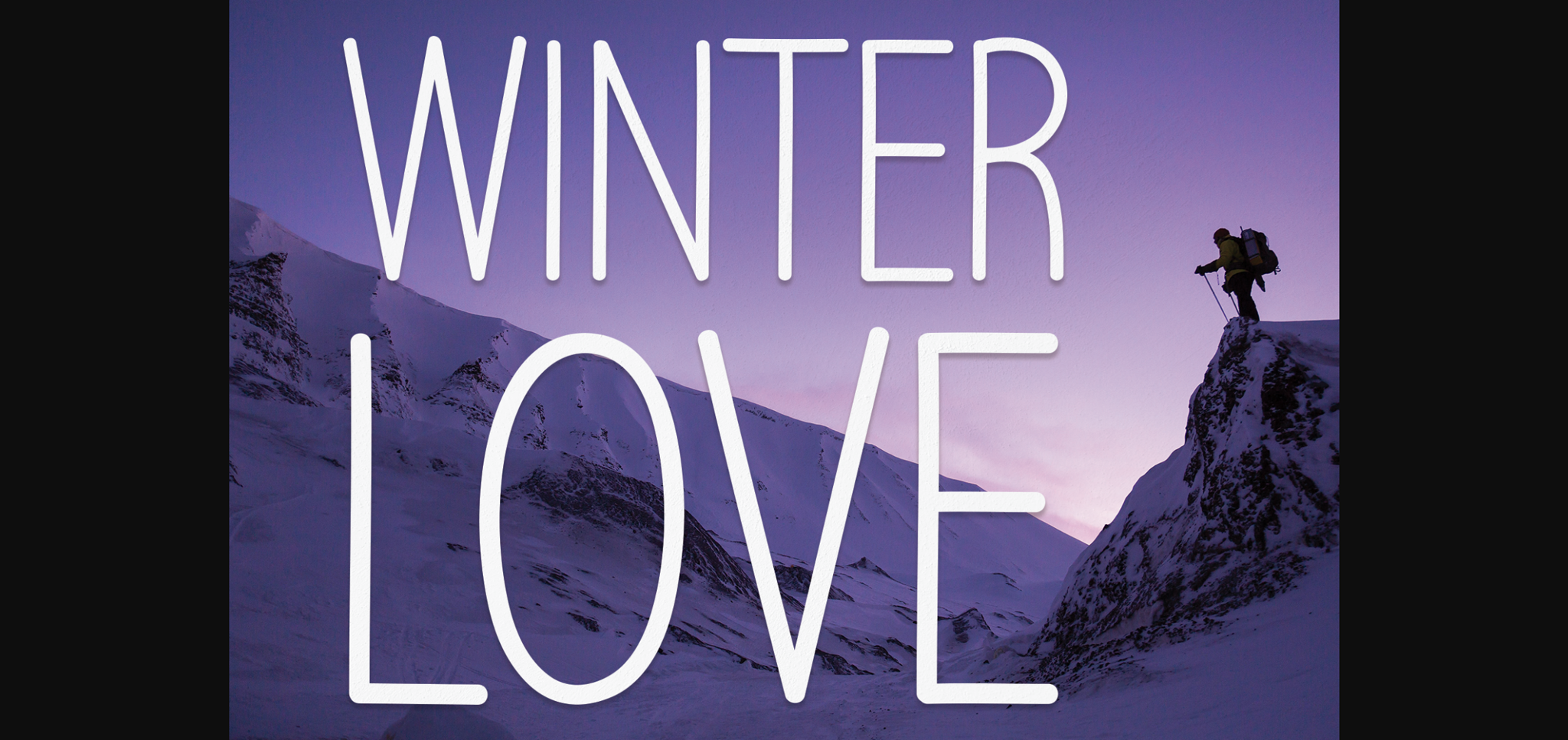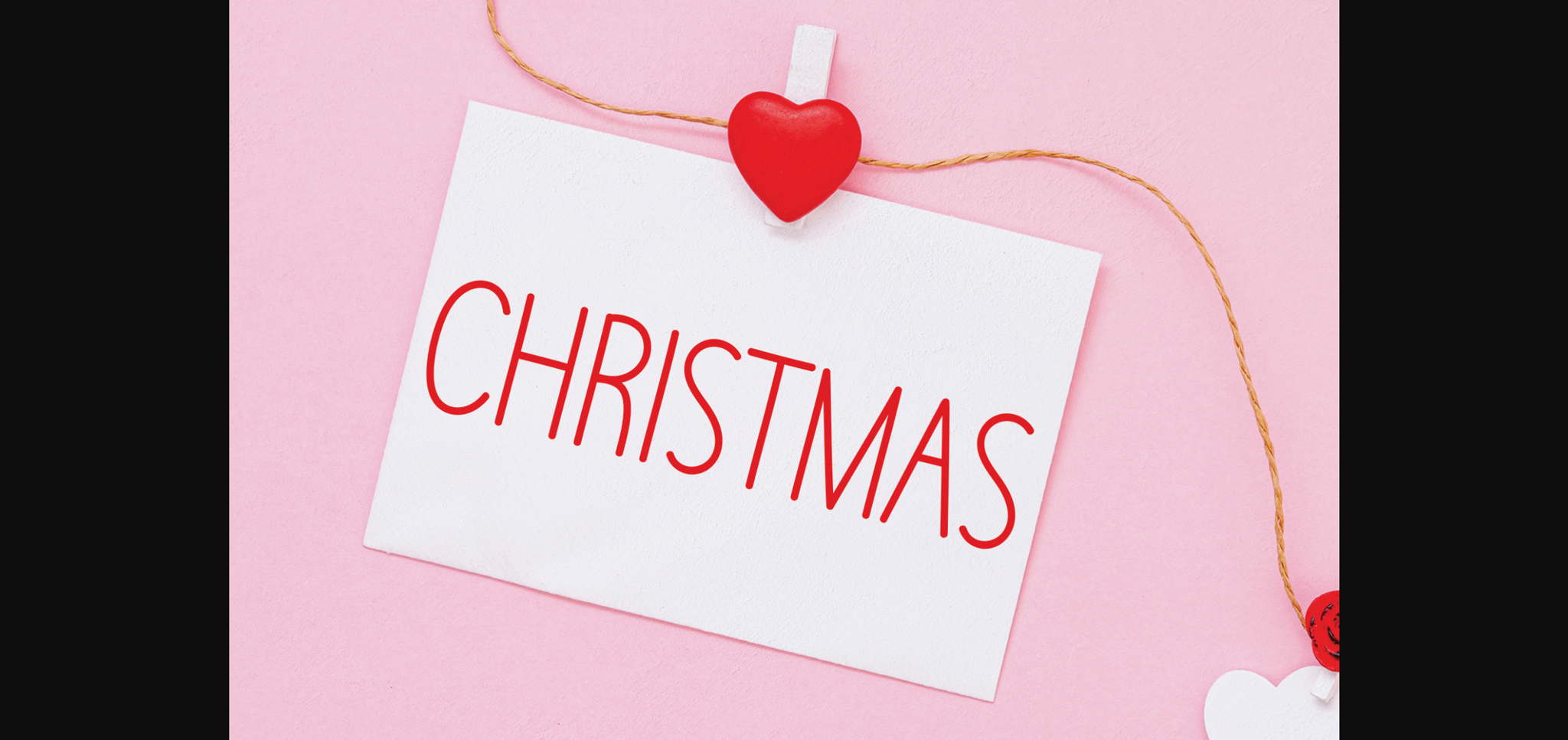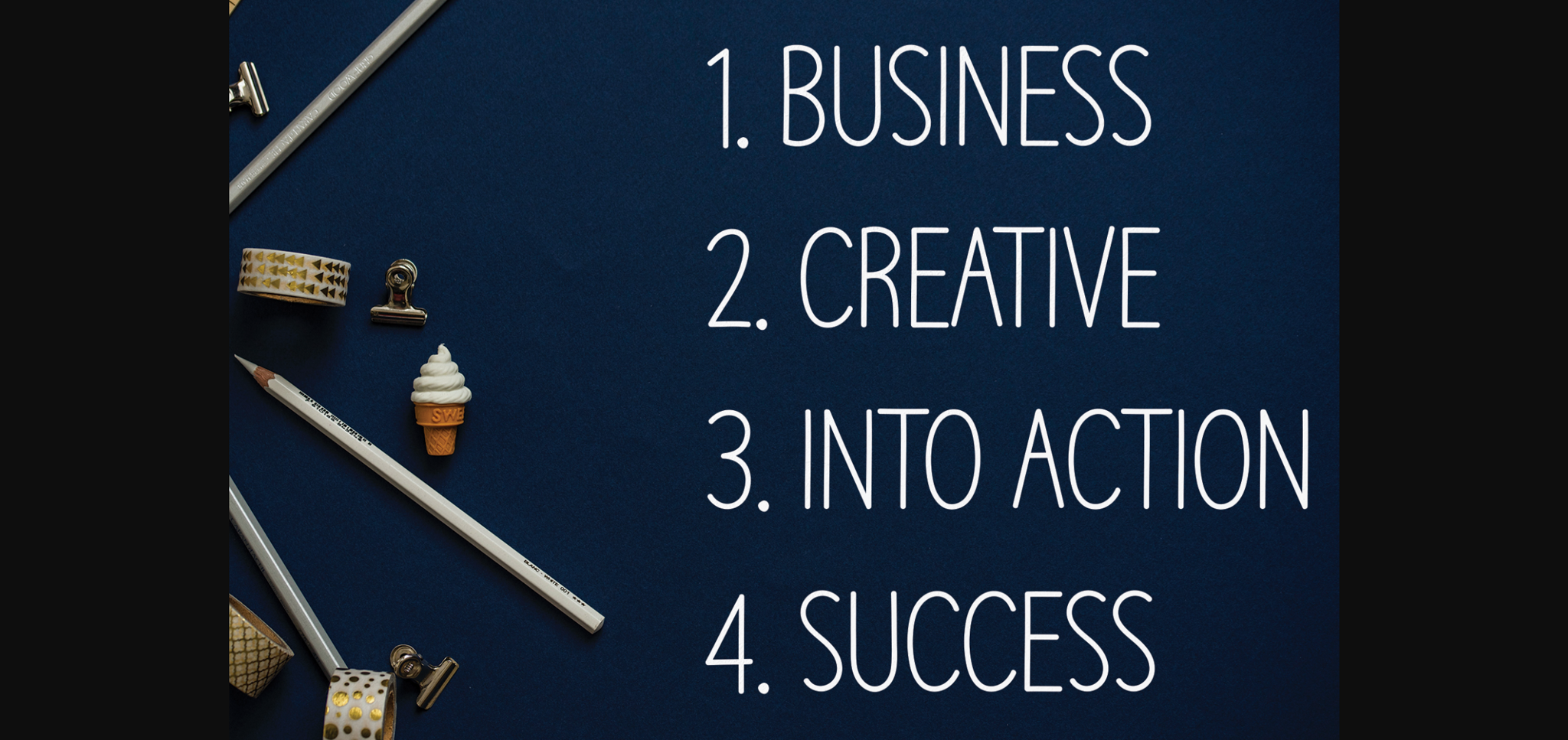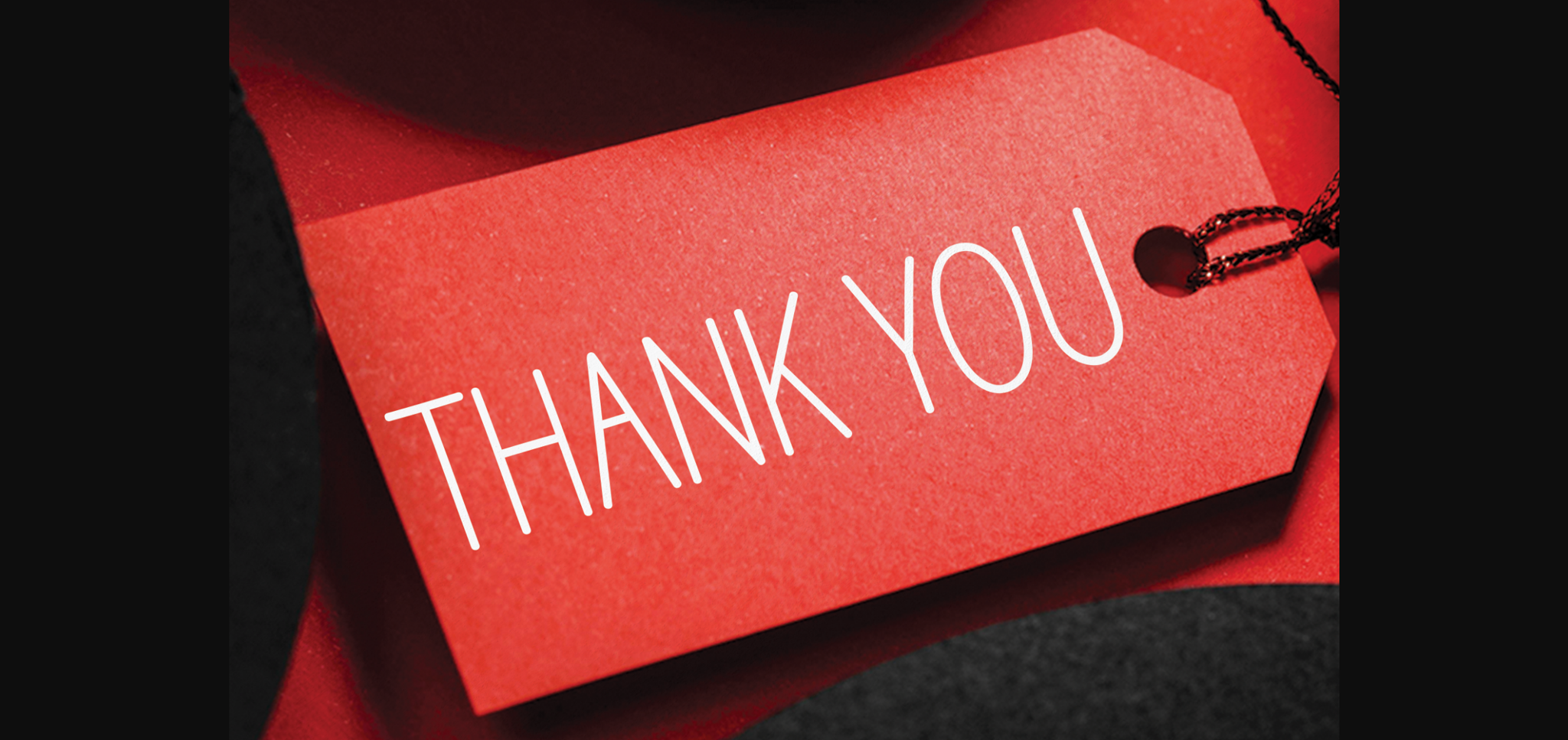
About Winter Love Font
Winter Love is a minimal and neat sans serif font. It can easily be matched to an incredibly large set of projects, so add it to your creative ideas and notice how it makes them stand out!